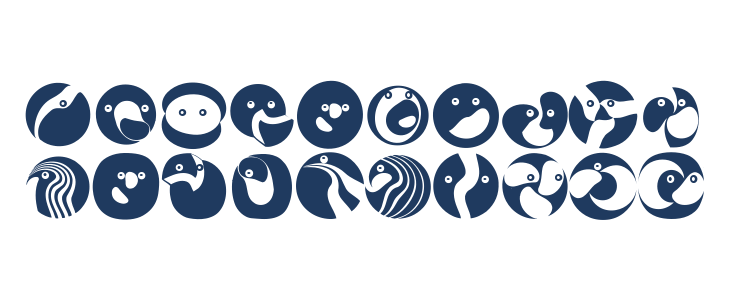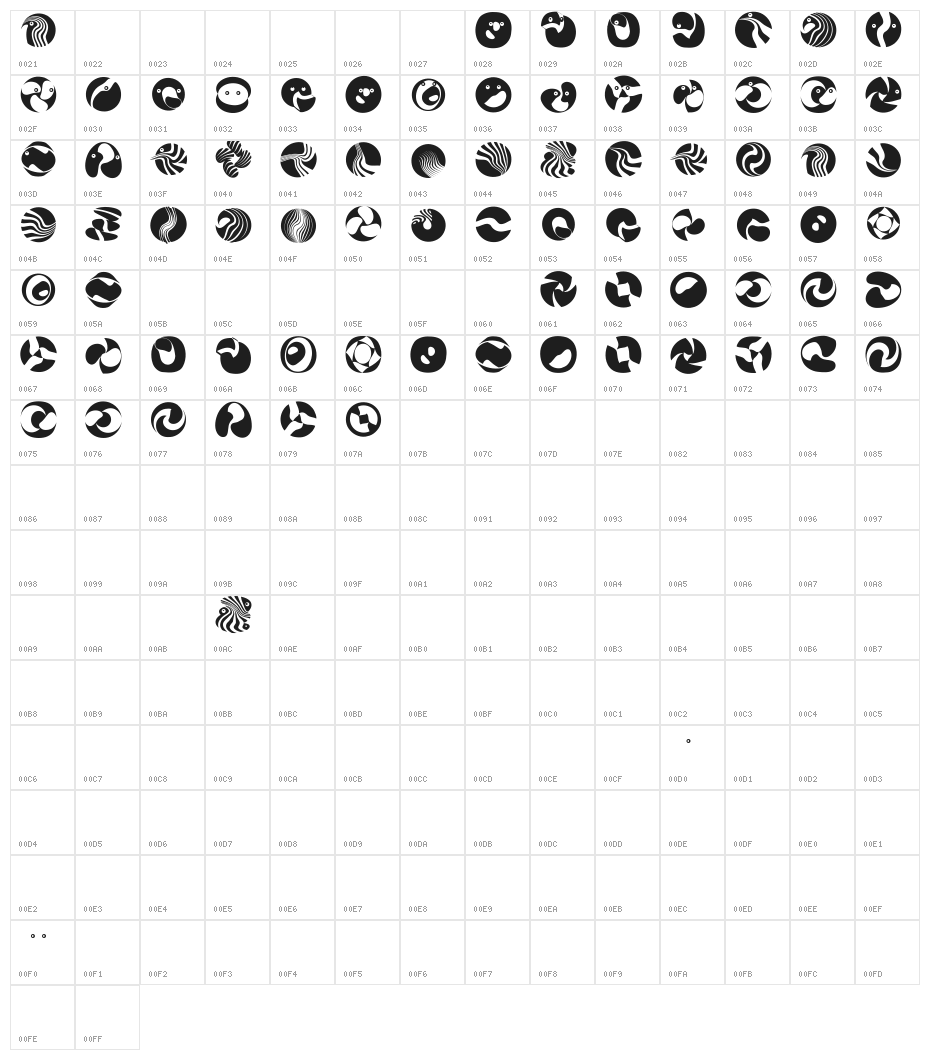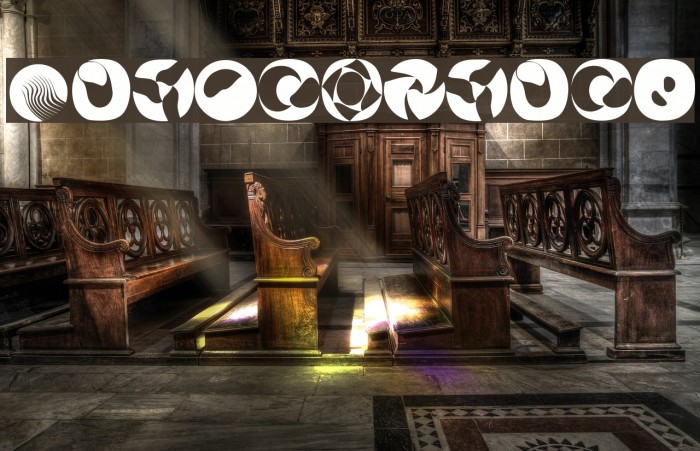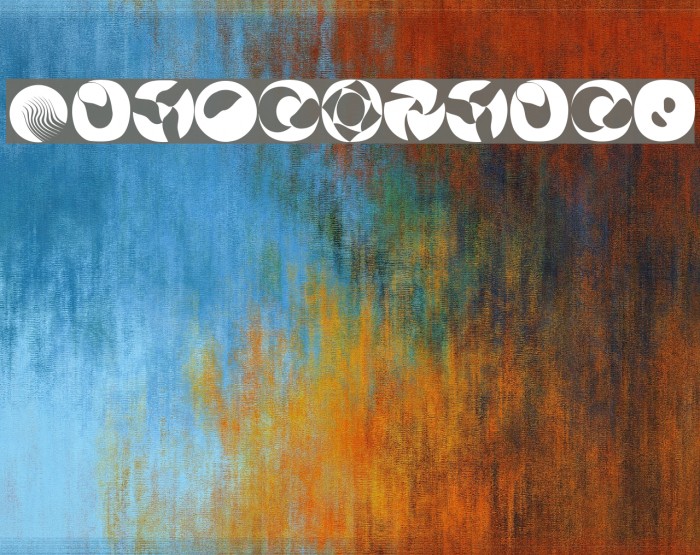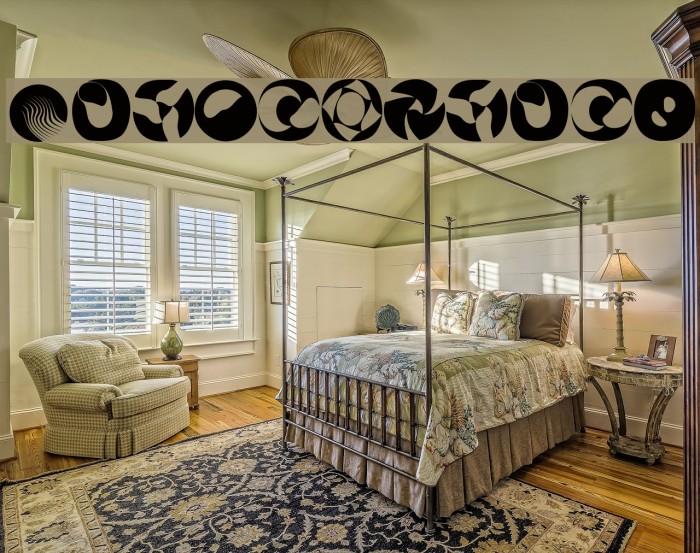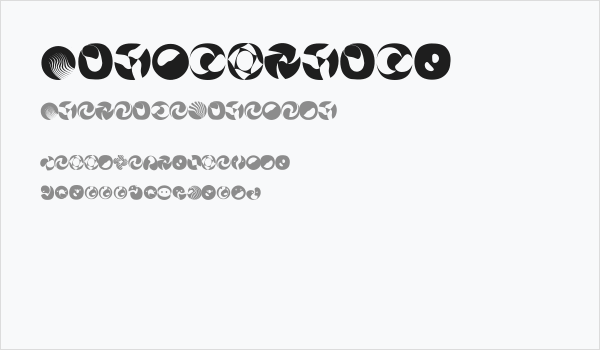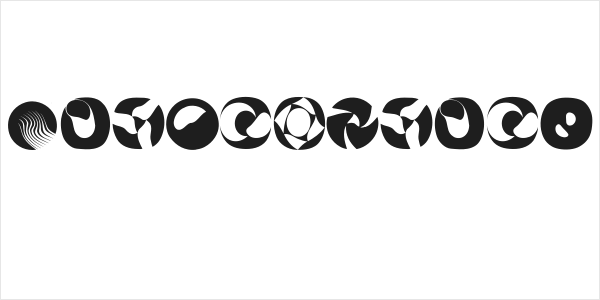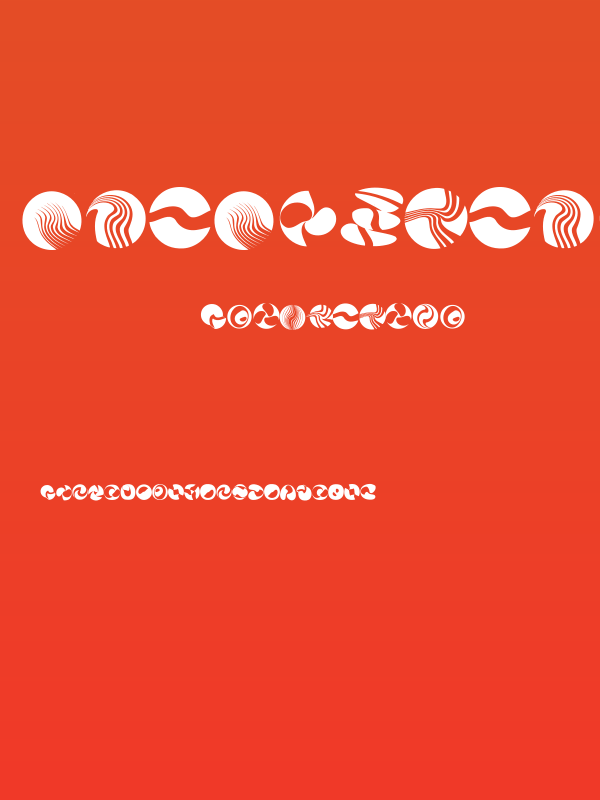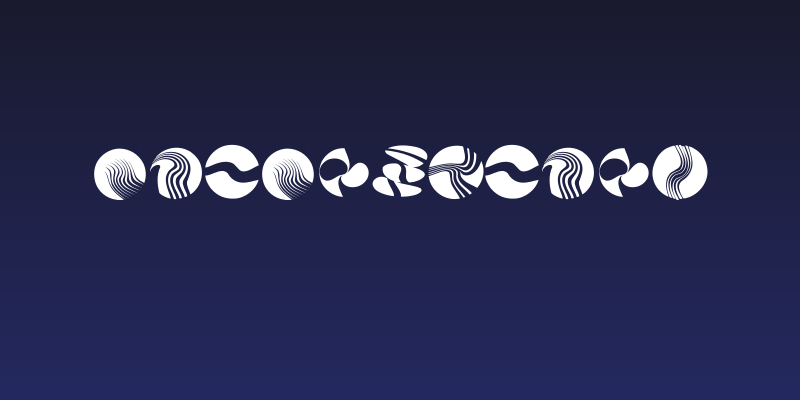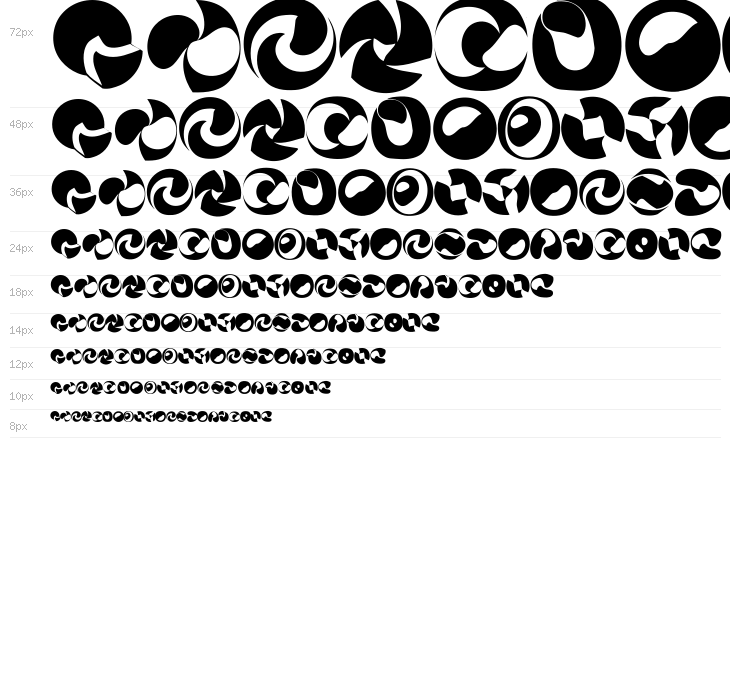
Circularium Font
Circularium Description
This design features a series of circular, abstract shapes that resemble a collection of unique symbols or icons rather than a traditional font. Each character is enclosed within a circle, with intricate patterns and designs that vary significantly from one to another. The overall aesthetic is bold and modern, with a strong emphasis on visual impact and creativity. The characters are not meant for typical text representation but serve as decorative elements that could be used in artistic or design projects.
| Overall Style | Modern, Artistic |
| Use Case | Logos, Decorative elements, Art projects |
| Proposed Projects | Ideal for use in graphic design projects, logo creation, branding elements, or as decorative motifs in digital art. |